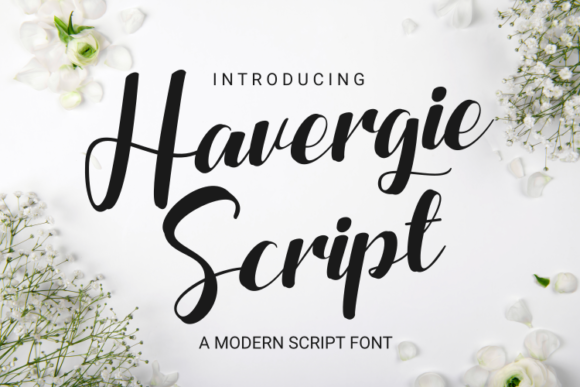
Step into the world of Havergie Font, a script font that exudes chic and trendy vibes. Immerse yourself in its thick lettered elegance, meticulously crafted to elevate your creative projects to new heights. Havergie's stylish alternates and ligatures dance harmoniously, adding a touch of individuality and flair to your designs.
Unleash your artistic vision with Havergie, the perfect companion for projects that demand a touch of sophistication and personality. Its versatility knows no bounds, effortlessly adapting to a myriad of applications, from elegant wedding invitations to eye-catching social media posts.
With Havergie, you'll embark on a journey of creativity, transforming your words into captivating works of art. Its PUA encoding opens up a world of possibilities, granting you effortless access to a treasure trove of glyphs and swashes. Unleash your imagination and let Havergie guide you to design masterpieces.
Havergie is more than just a font; it's a gateway to a realm of endless creative possibilities. Its thick, bold strokes command attention, leaving an indelible mark on the hearts and minds of your audience. Whether you're a seasoned designer or just starting your creative journey, Havergie will elevate your projects to new heights of brilliance.
Don't let mediocrity hold you back. Embrace the transformative power of Havergie and witness the remarkable evolution of your creative endeavors. Its enchanting allure will captivate your audience, leaving them spellbound by the sheer beauty of your designs.
Havergie yearns to be your creative partner, eagerly awaiting the opportunity to collaborate on your next masterpiece. Its versatility knows no bounds, seamlessly adapting to a myriad of projects, from logos and branding to website designs and social media graphics.
With Havergie by your side, you'll unlock a world of creative possibilities, transforming ordinary designs into extraordinary works of art. Its thick, bold strokes will leave an enduring impression, forever etching your creations into the minds of those who encounter them.